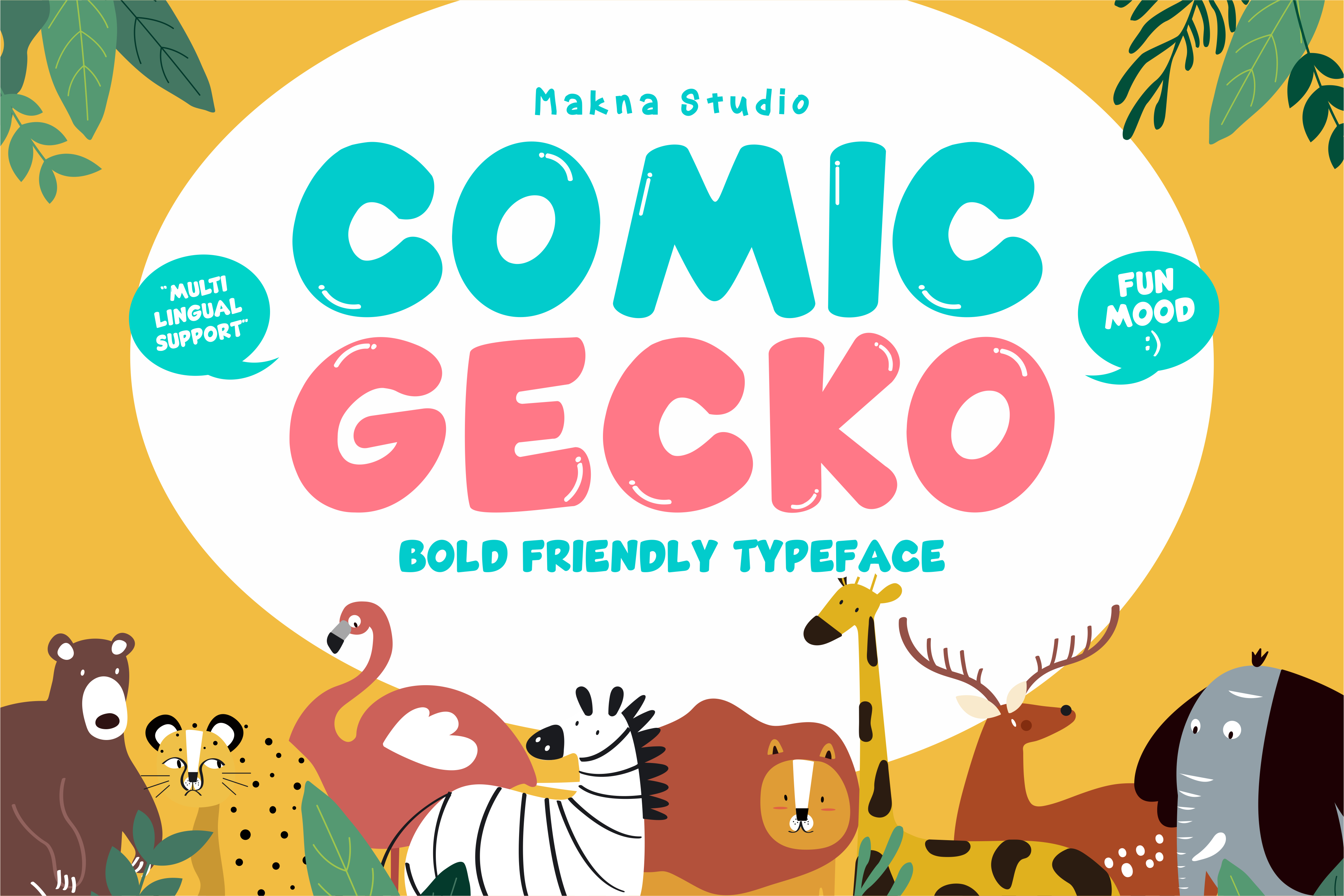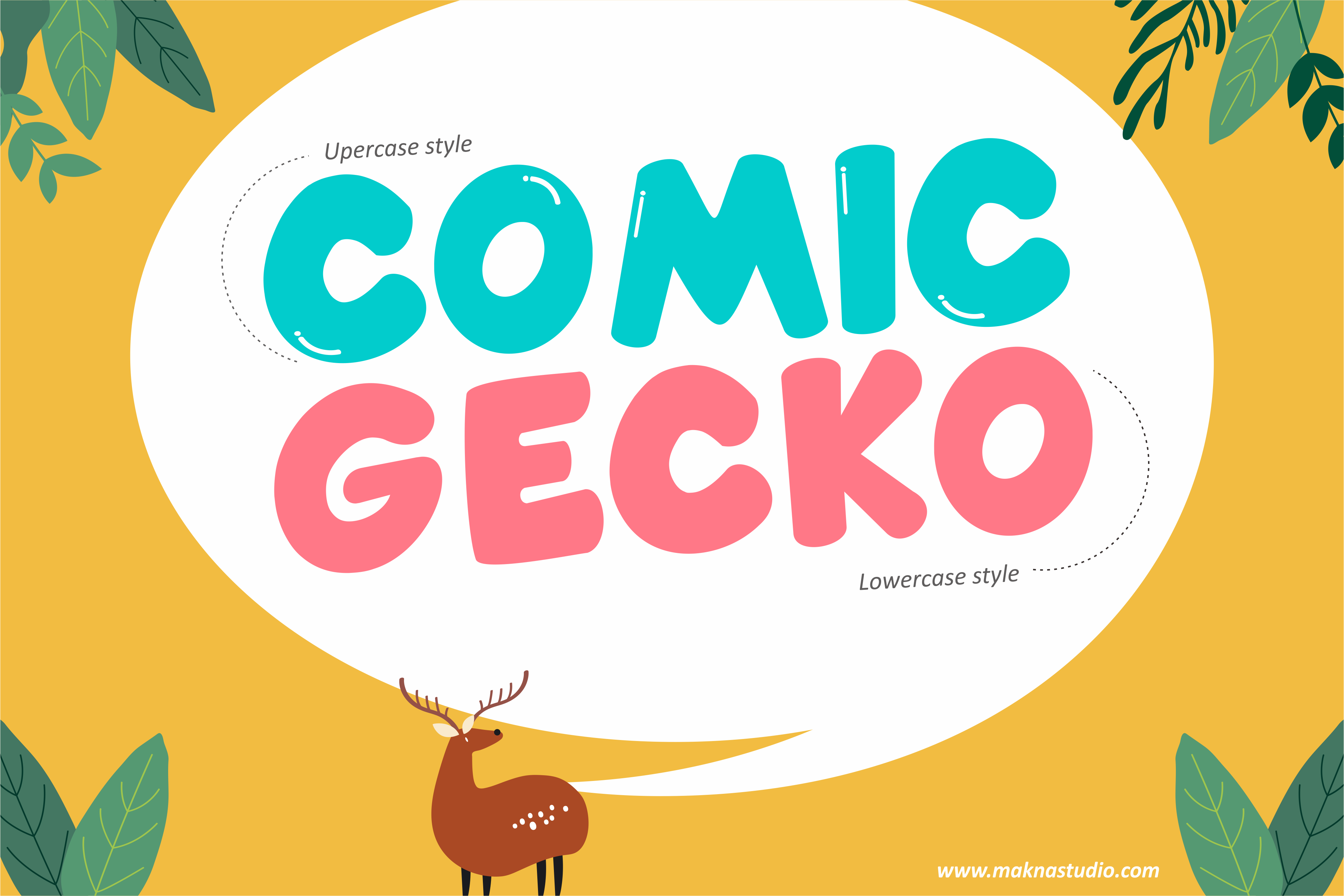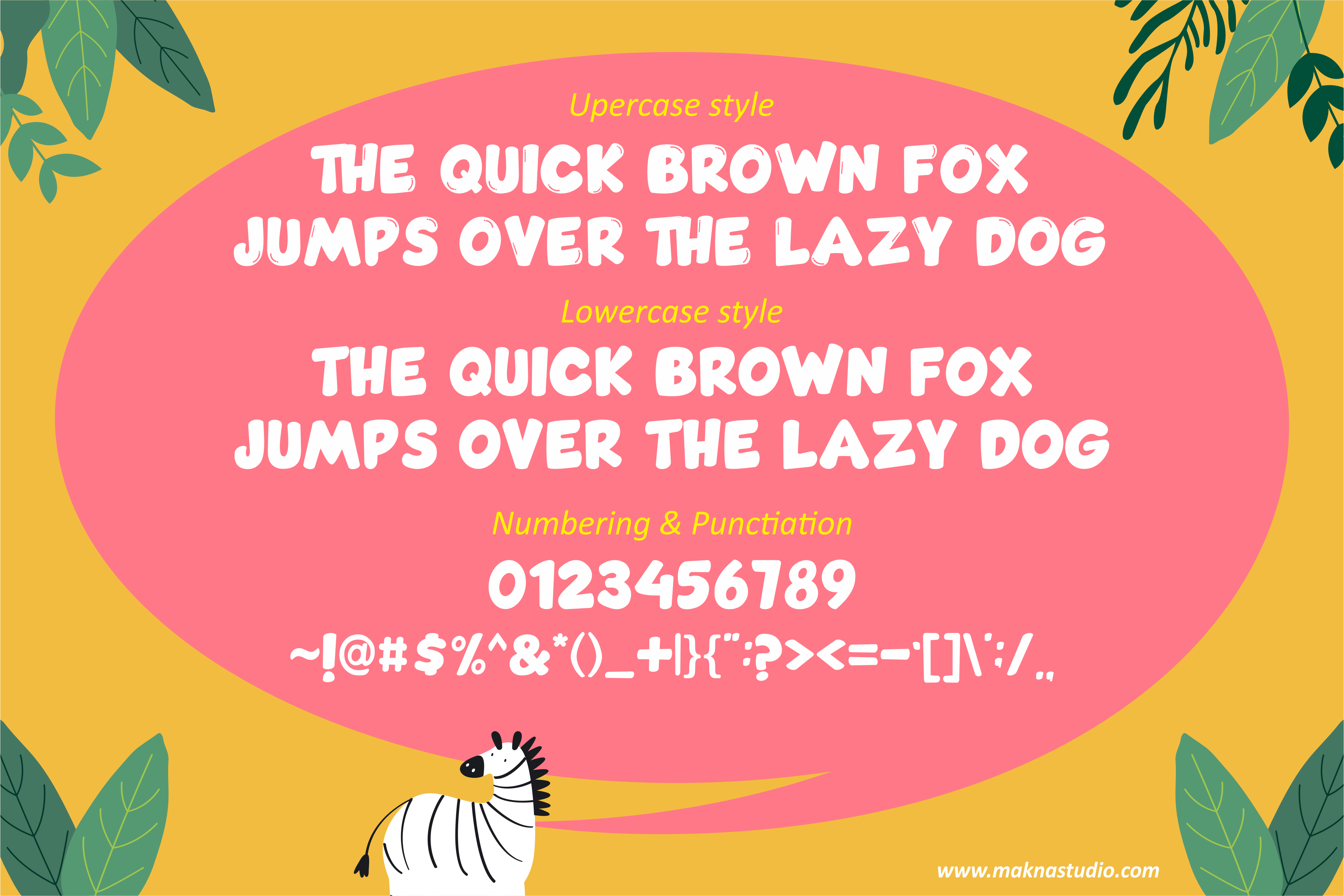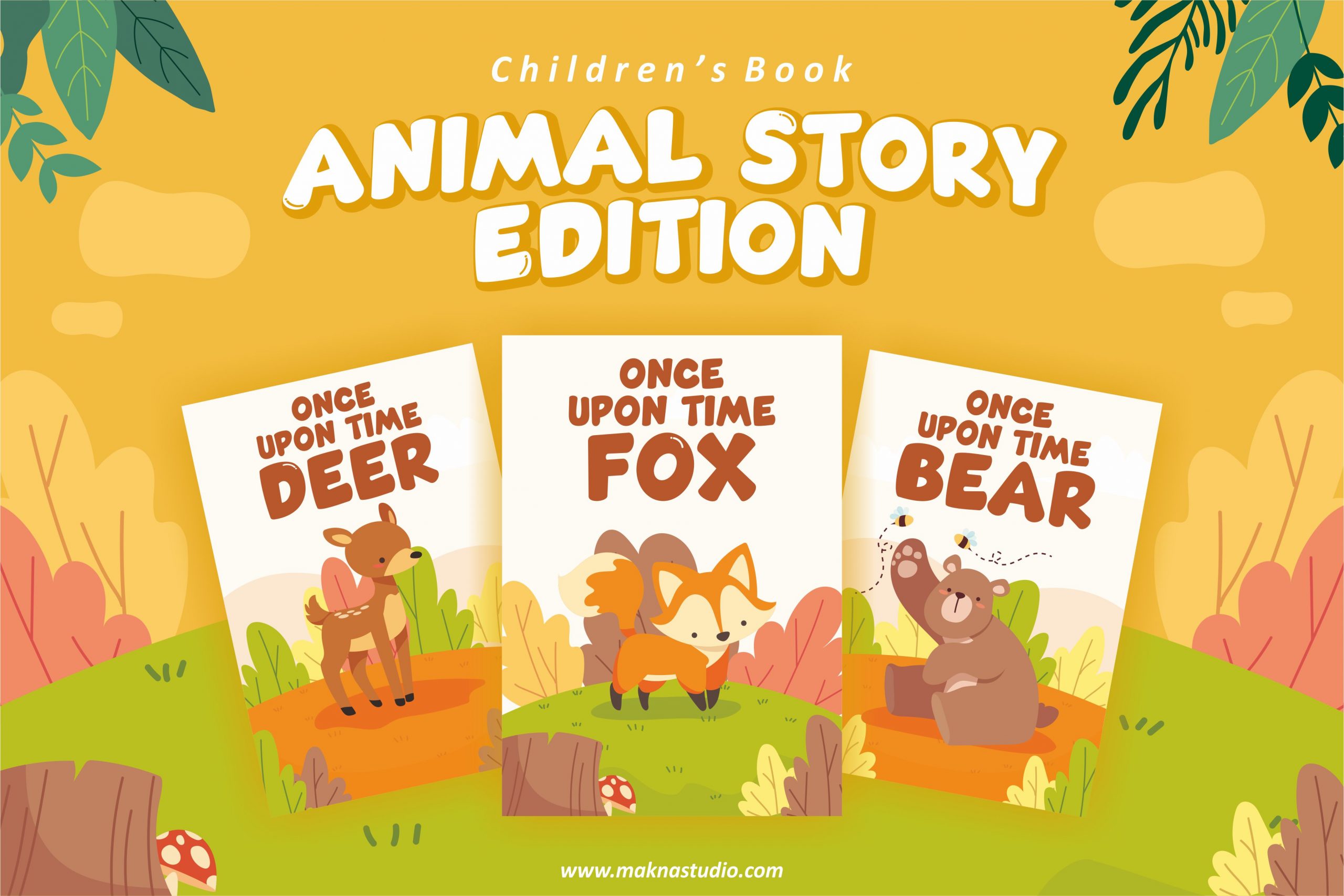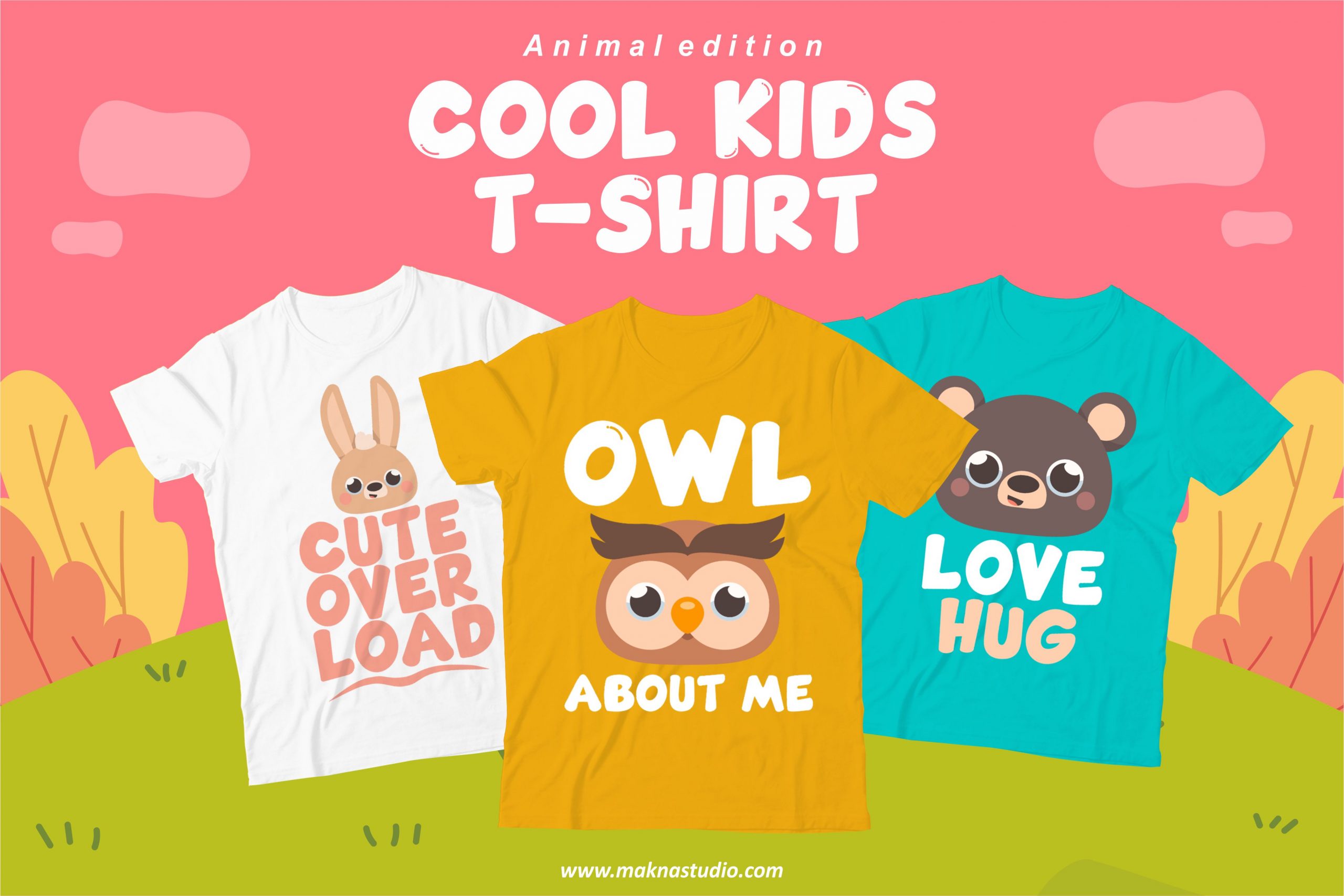
Comic Gecko Pro Font
Comic Gecko Pro Font is a bold friendly typeface which was created to bring a Joy, playful and little bit Fun in any design. Bold clean letters looks simple and Funny. It’s perfectly for children books story, funny Tshirt, Kids meal package product design, logotypes with fun style and much other,
where used comic cartoon or simple fun graphic. we make some design examples, so you can see how it works.
Comic Gecko Pro includes:
Uppercase, lowercase, numbers, punctuations;
Opentype features (Stylistic and Contextual alternates, Standart and Discretionary ligatures)
Multilingual support (Western European characters).
Languages: English, Danish, Dutch, Estonian, Faroese, Filipino, Finnish, French, German, Hungarian, Icelandic, Irish, Italian, Norwegian, Polish, Portuguese, Spanish, Swedish, Turkish.